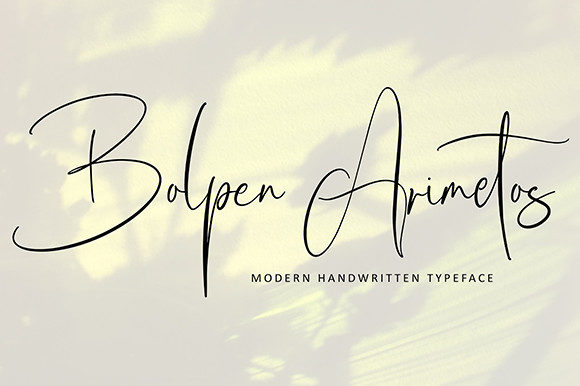
Introducing Bolpen Arimetos Font: Elevate Your Designs with a Slim and Relaxed Handwritten Touch
In the world of typography, a well-chosen font can make all the difference in transforming a design from ordinary to extraordinary. For designers and crafters seeking to add a personal, handwritten touch to their projects, Bolpen Arimetos Font is an exceptional choice. This slim and relaxed handwritten font is versatile, elegant, and perfect for a variety of applications, from wedding invitations and thank you cards to logos, business cards, and more.
The Characteristics of Bolpen Arimetos Font
Bolpen Arimetos Font stands out with its unique characteristics that make it an ideal selection for designers looking for a font that exudes elegance and simplicity. Its slim and relaxed style gives it a modern yet approachable feel, suitable for designs that require a touch of sophistication without appearing too formal.
- Slim and Relaxed: The font’s slim lines and relaxed posture make it highly readable and visually appealing, perfect for a wide range of design projects.
- Handwritten Touch: Unlike generic fonts, Bolpen Arimetos offers a genuine handwritten feel, adding a personal and intimate touch to any design.
- PUA Encoded: Being PUA (Private Use Area) encoded, Bolpen Arimetos allows easy access to all glyphs and swashes, providing designers with the flexibility to create unique and customized designs.
Applications of Bolpen Arimetos Font
The versatility of Bolpen Arimetos Font makes it suitable for various design projects. Here are some of the areas where this font truly shines:
- Wedding Invitations: The elegant and personal touch of Bolpen Arimetos makes it a perfect fit for wedding invitations, setting the tone for a memorable and special day.
- Thank You Cards: Express gratitude with style using Bolpen Arimetos for your thank you cards, making them more heartfelt and visually appealing.
- Quotes and Greeting Cards: Add a touch of personality to quotes and greeting cards, making them stand out and resonate more with the audience.
- Logos and Business Cards: For businesses looking to establish a personal brand identity, Bolpen Arimetos can be used to create unique logos and business cards that reflect a more approachable and human side.
Bolpen Arimetos Font offers several benefits for designers and crafters, making it a valuable addition to their font collection:
- Easy to Use: With its PUA encoding, accessing and using the various glyphs and swashes is straightforward, saving designers time and effort.
- High Versatility: The font’s adaptability to different design projects means designers can use it across a range of applications, from digital designs to print materials.
- Unique Designs: The handwritten nature and the availability of swashes allow designers to create one-of-a-kind designs that stand out in a crowded market.
Bolpen Arimetos Font is a beautiful, slim, and relaxed handwritten font that can elevate any design project with its elegant and personal touch. Its versatility, combined with PUA encoding for easy access to glyphs and swashes, makes it an excellent choice for designers and crafters looking to add a unique and sophisticated element to their work. Whether you’re creating wedding invitations, logos, business cards, or any other design that could benefit from a handwritten touch, Bolpen Arimetos Font is sure to exceed your expectations.
Incorporating Bolpen Arimetos into your design toolkit can open up new possibilities for creativity and expression, allowing you to connect with your audience on a more personal level. Experience the difference that a carefully chosen font can make in your designs by exploring the possibilities with Bolpen Arimetos Font.